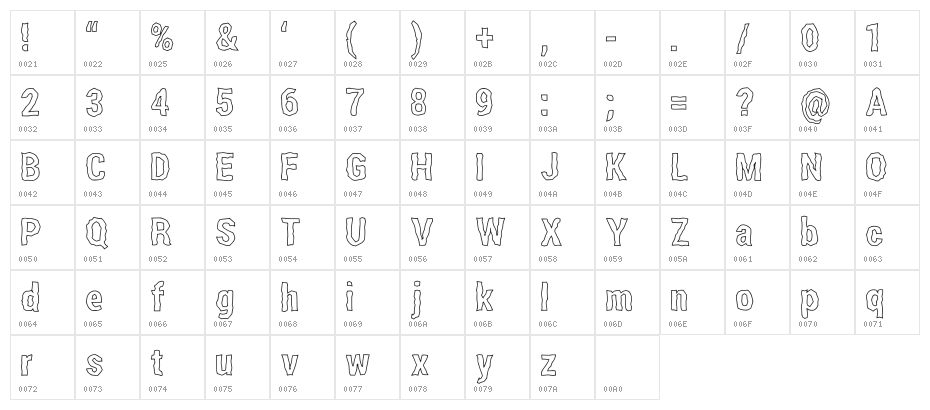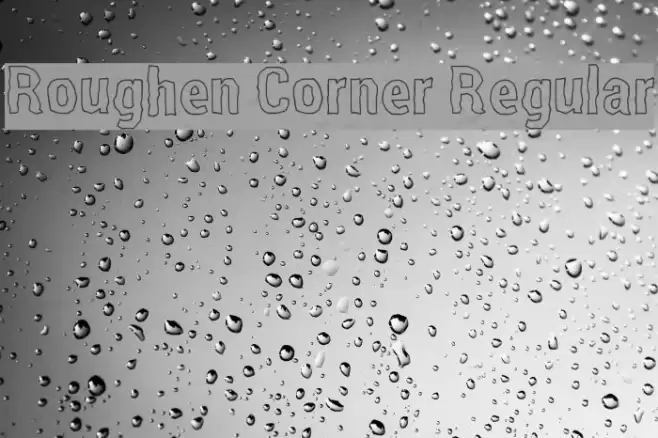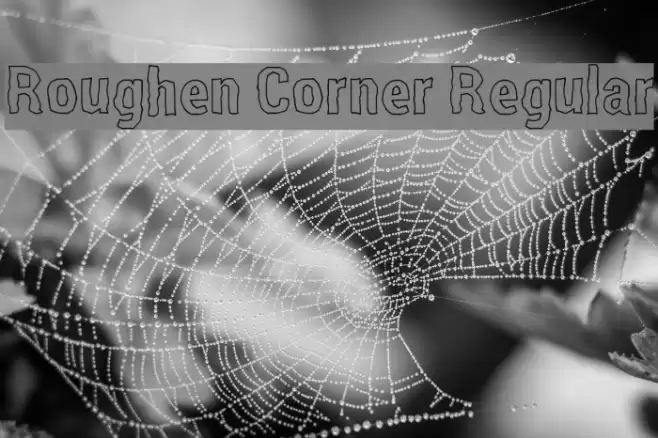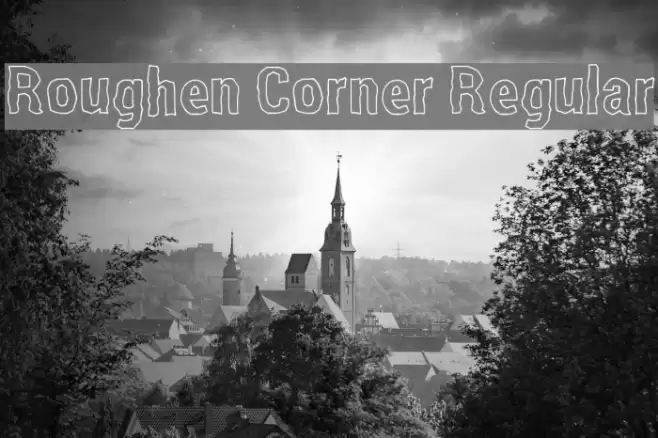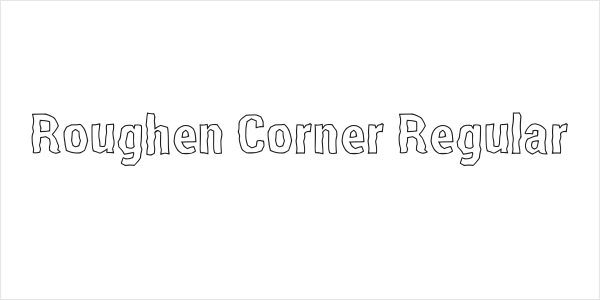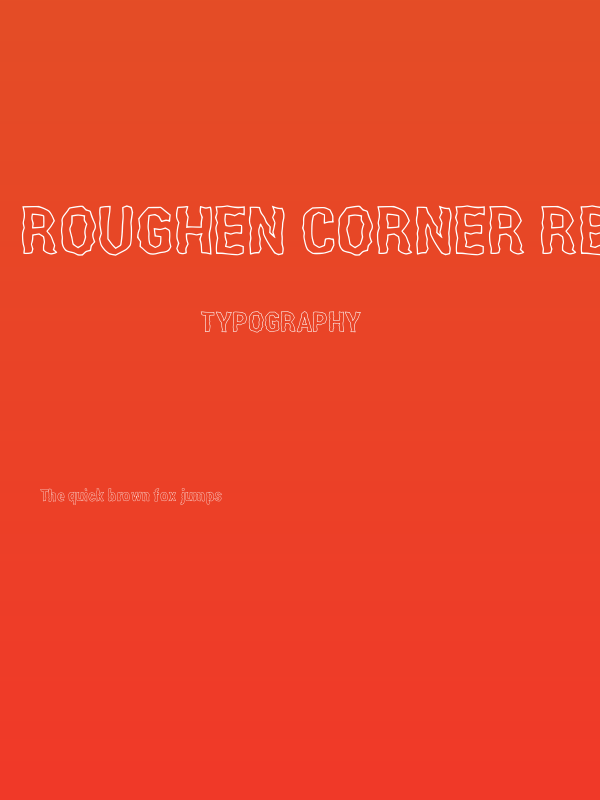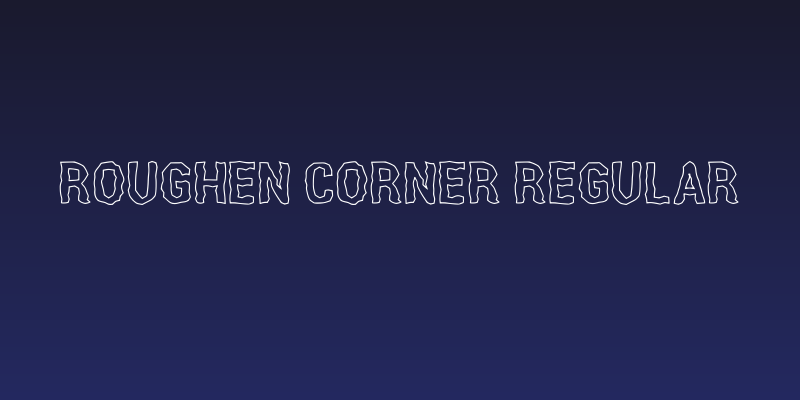
Roughen Corner Regular Font
Roughen Corner Regular Description
This font features a rugged, hand-drawn appearance with irregular edges that give it a unique, organic feel. The characters are bold and slightly distorted, creating a sense of movement and energy. The uppercase and lowercase letters maintain a consistent style, with the uppercase being slightly more pronounced. Numbers and special characters follow the same rough aesthetic, making the font cohesive across all elements. This style is reminiscent of a hand-sketched design, perfect for projects that require a touch of creativity and individuality.
| Use Case | Headlines, Logos, Artistic projects |
| Proposed Projects | Ideal for creative projects such as posters, album covers, and artistic branding that require a unique and organic touch. |